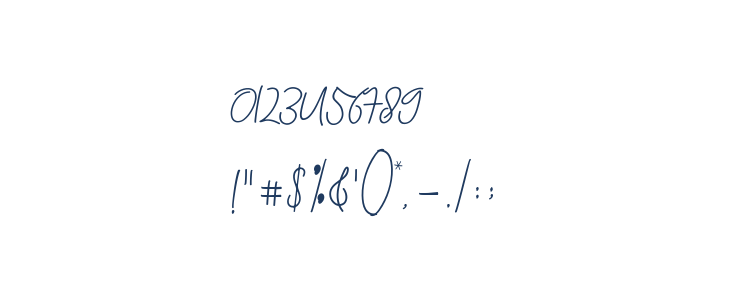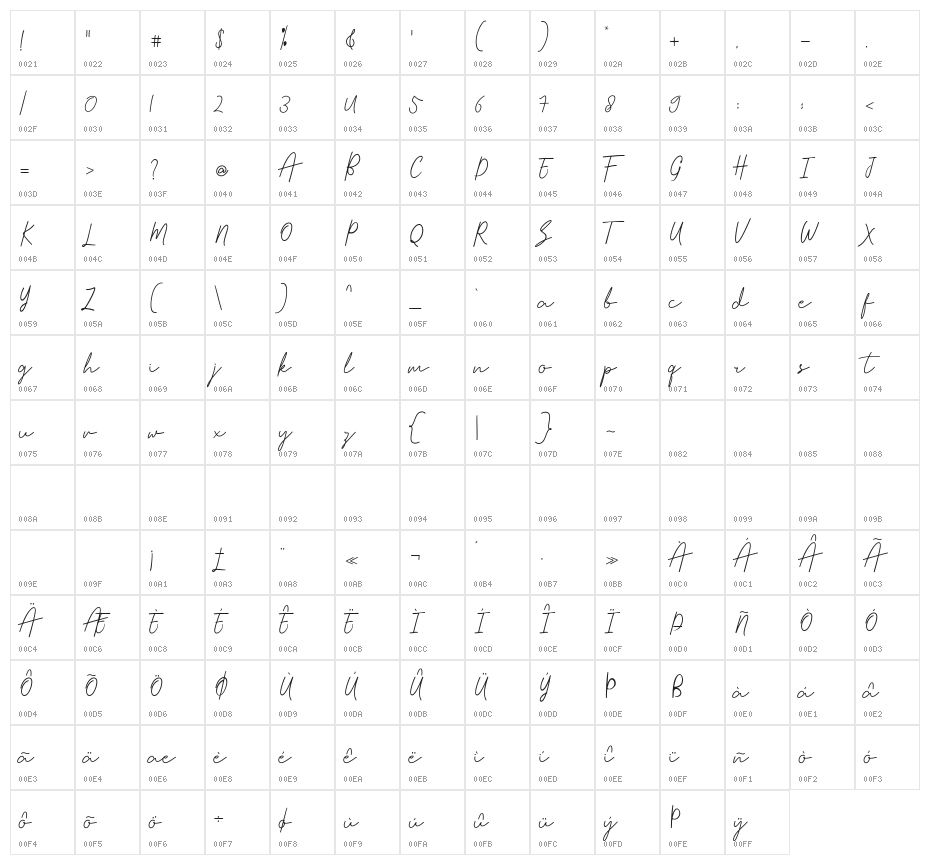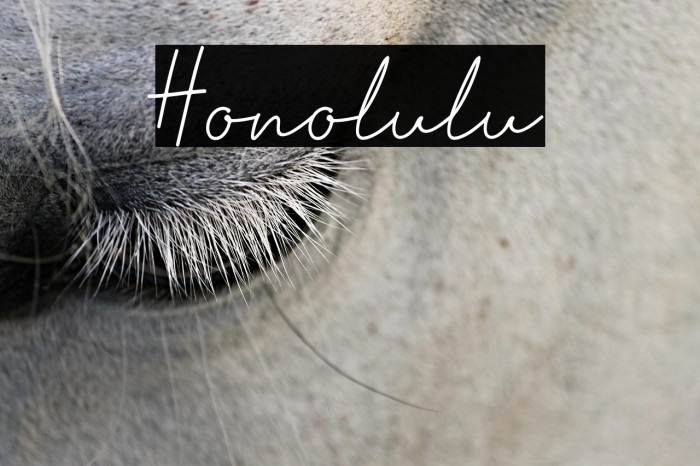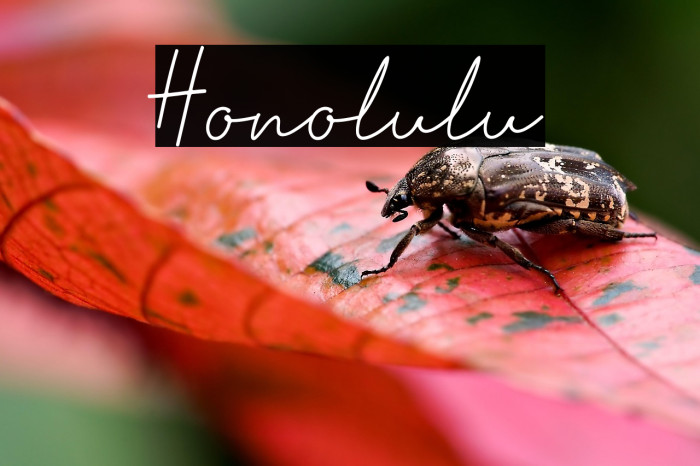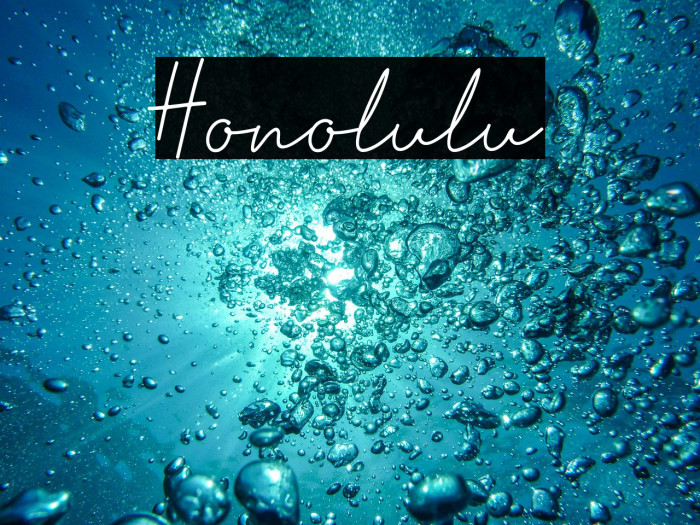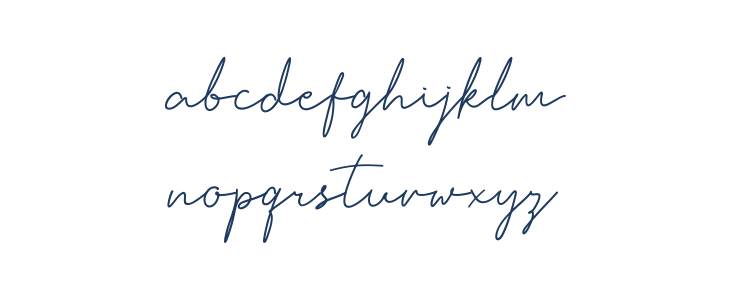
Honolulu Font
Honolulu Description
This font exudes a casual, handwritten style with a modern twist. The letters are elegantly connected, giving it a fluid and natural appearance. The uppercase characters maintain a consistent height, while the lowercase letters feature gentle curves and loops, enhancing its handwritten charm. Numbers and special characters are seamlessly integrated, maintaining the overall aesthetic. The strokes are smooth and slightly varied in thickness, adding a touch of sophistication without compromising readability.
Use CaseLogos, Invitations, Social Media
Proposed ProjectsIdeal for personal branding, wedding invitations, greeting cards, and social media graphics.